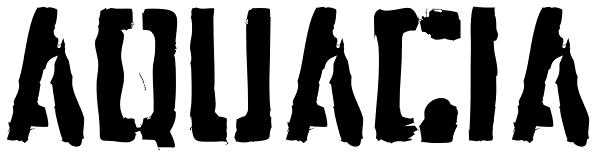
Aquacia
A stencil font you won't find anywhere else. Part of Market LTD, a collection of limited faces, mostly alpha-numeric and some just plain numeric, used primarily in retail and display situations and titling.